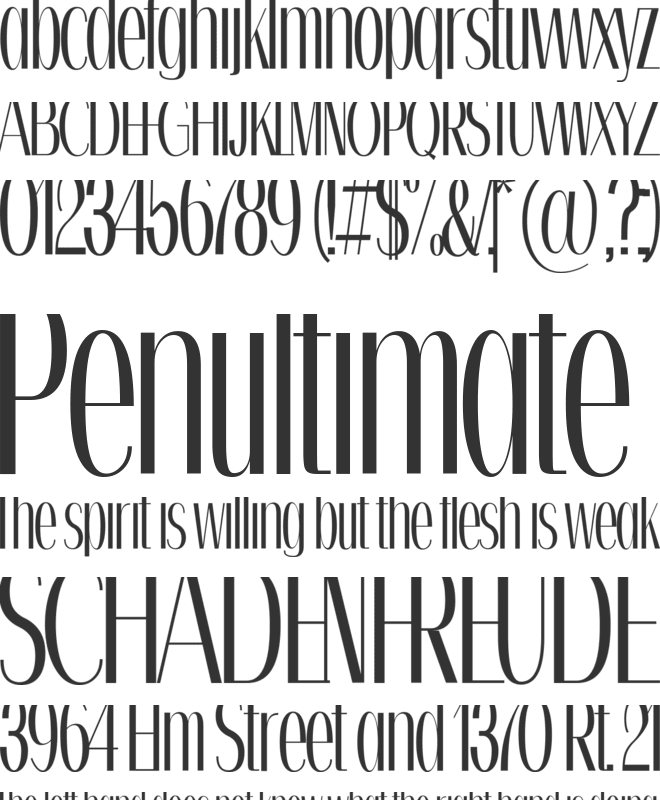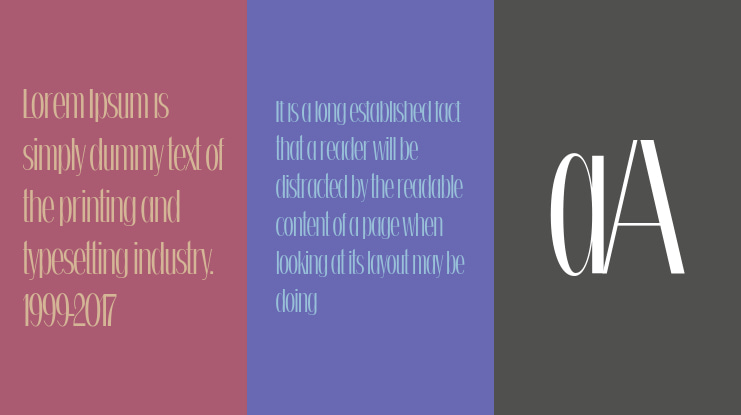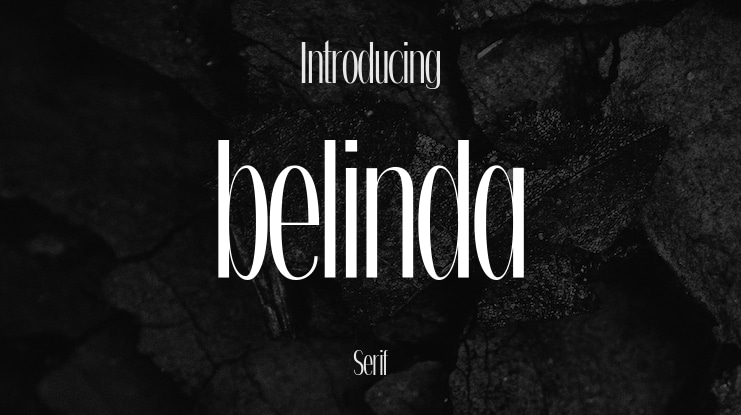
🎨 Font Name: Belinda by Minimalist Art Studio
🎨 Font Description: Belinda is a minimalist sans dingbat font with stylish small caps and multilingual support—ideal for branding accents, editorial layouts, and modern design systems.
✔ Complete Latin set + multilingual diacritics
✔ Alternates, stylistic sets & ligatures
✔ Numbers, small caps, and extended punctuation
✔ Bonus italics and family styles